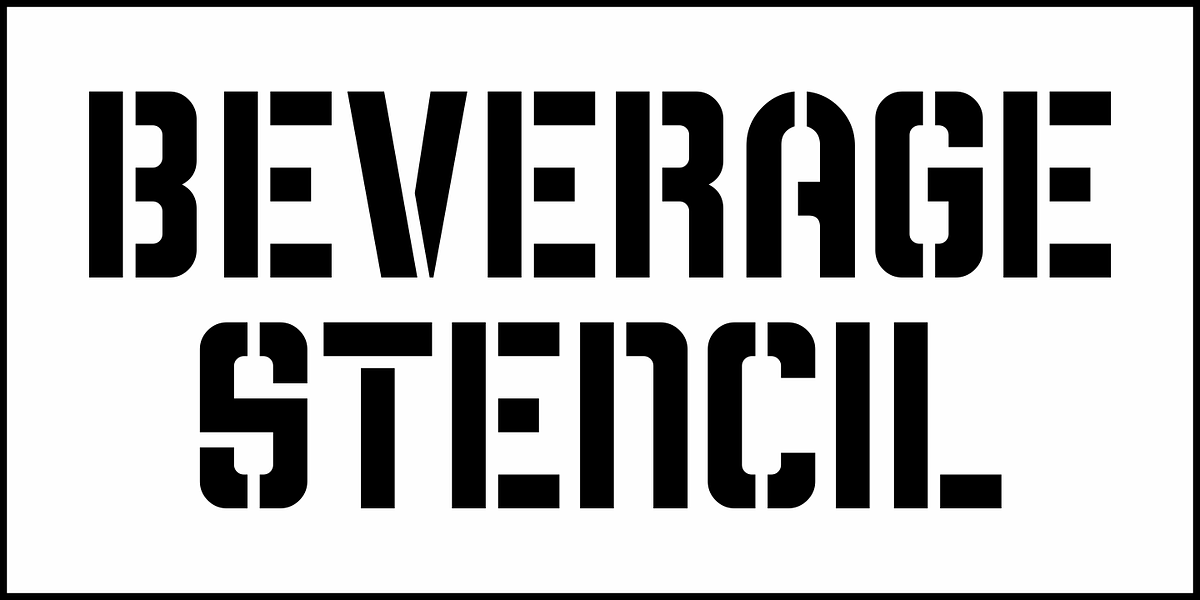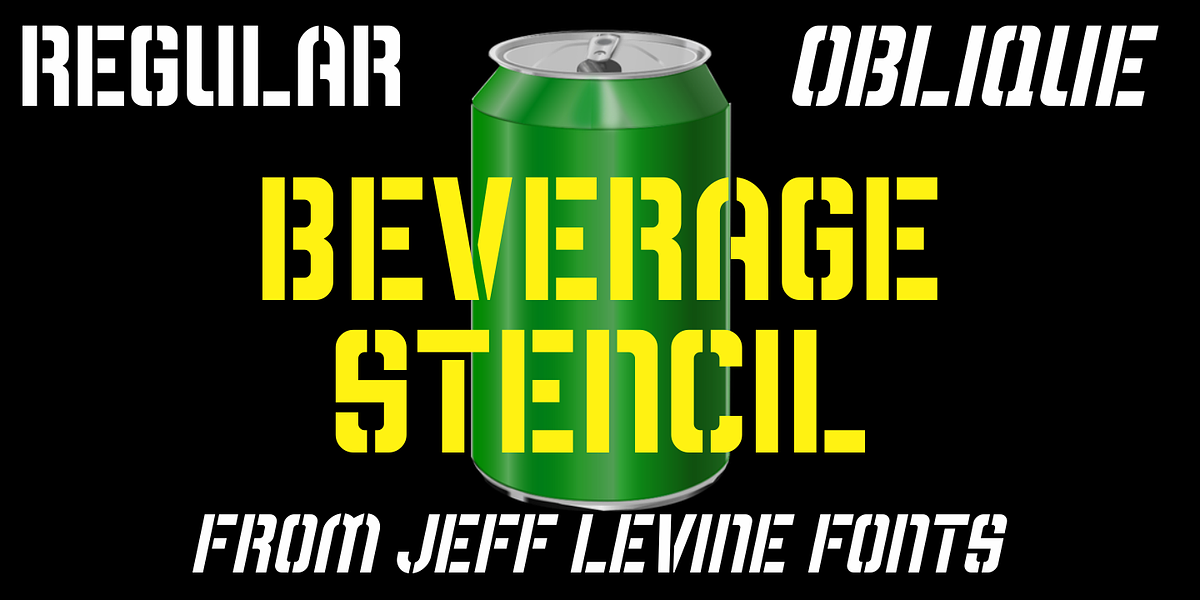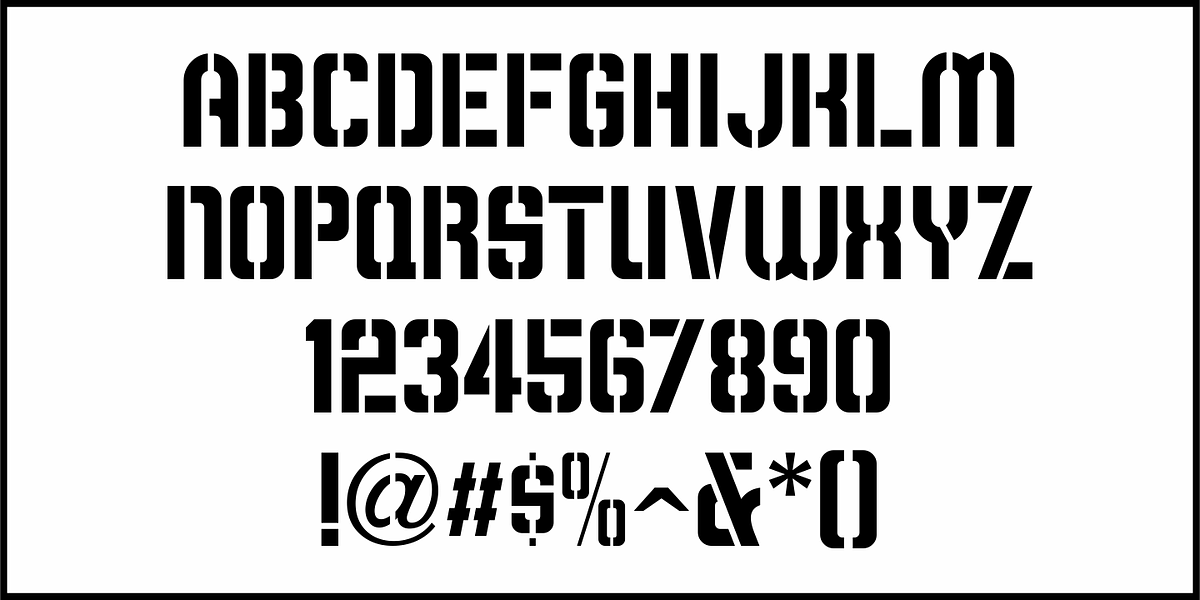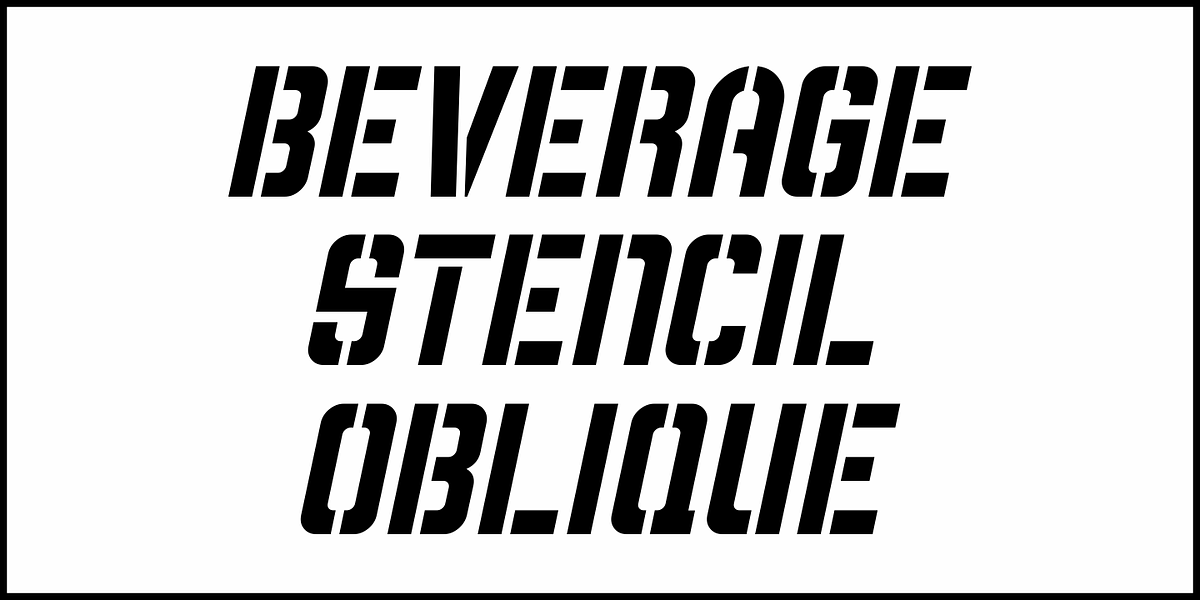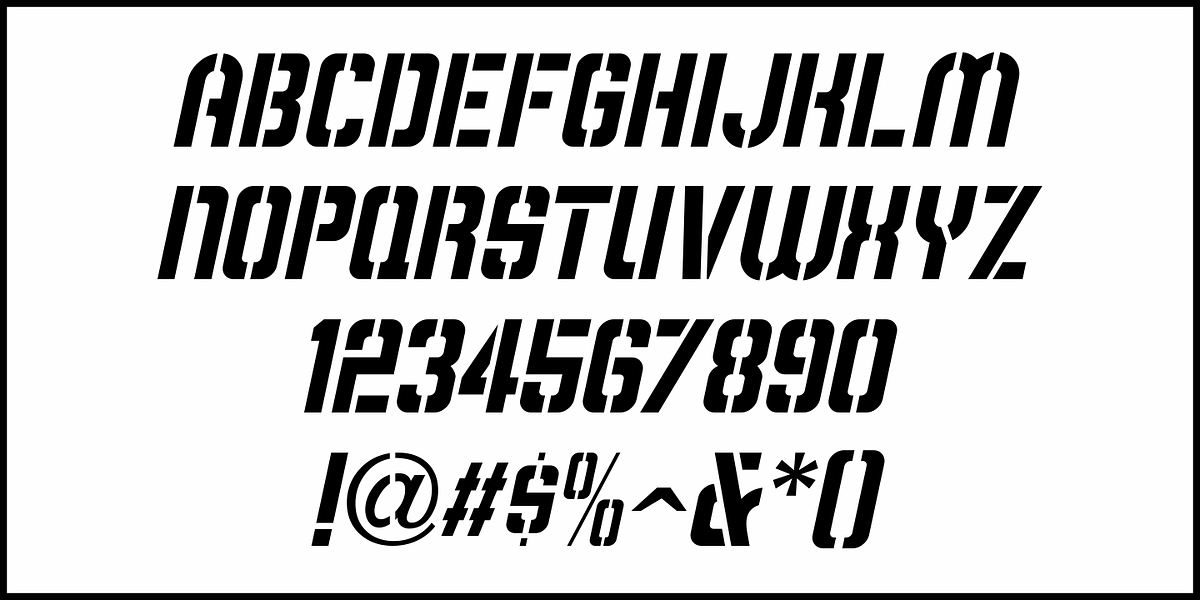
Beverage Stencil JNL
The brand marking on a vintage wooden shipping case for bottles of Mission Naturally Good Orange Soda inspired Beverage Stencil JNL, which is available in both regular and oblique versions.
Mission was a popular soda in California from about 1929 through 1970.